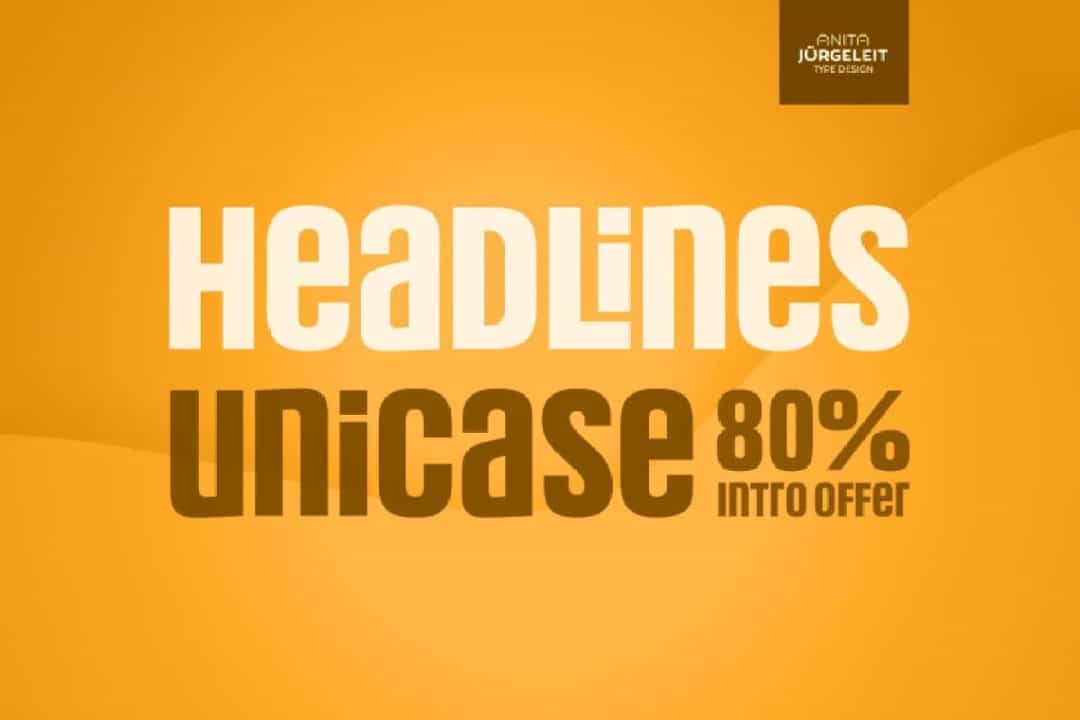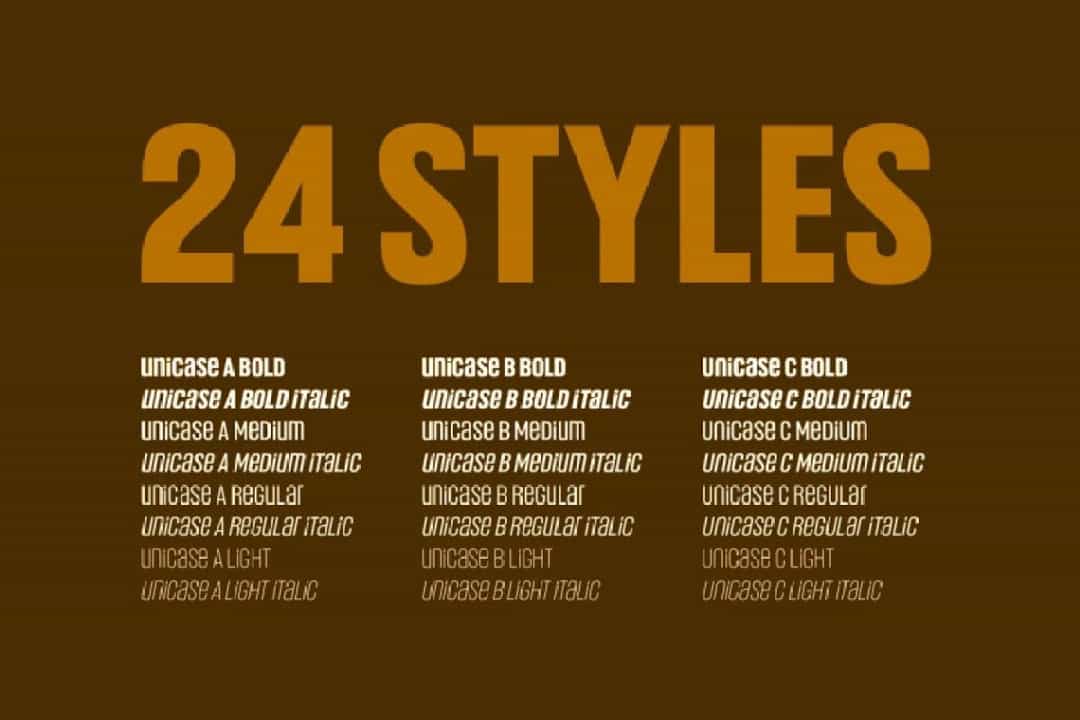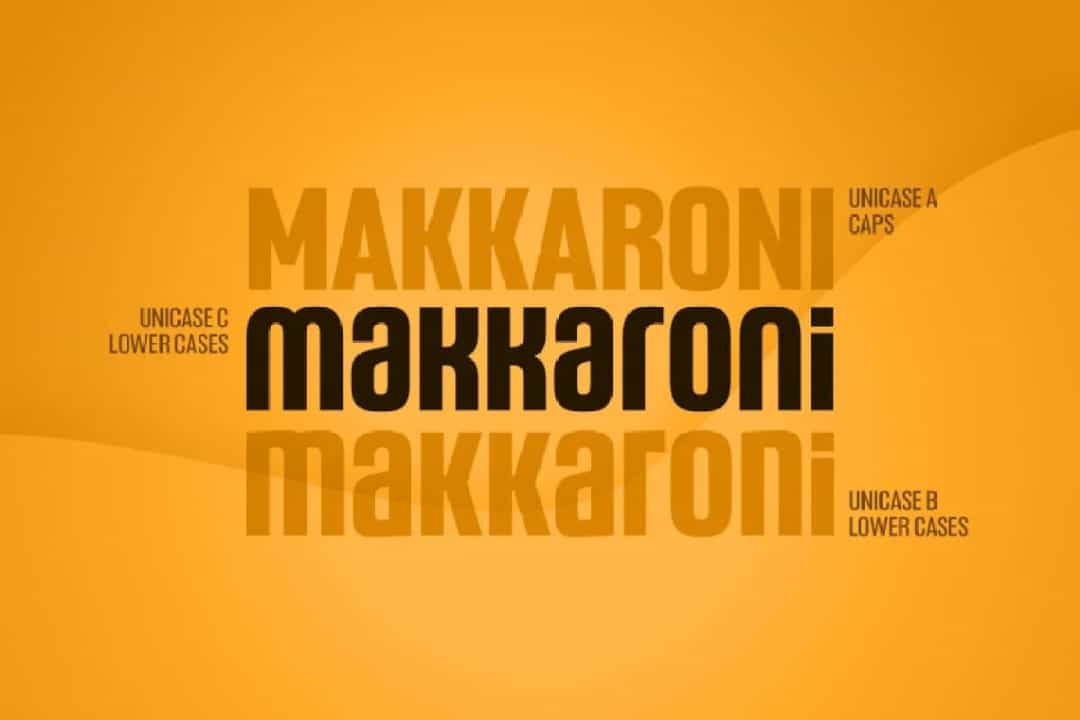
Discover Headlines Unicase Font, part of the Sans Serif collection—a versatile and unique font perfect for adding a personal touch to your projects. Download it for free and enjoy crafting designs with style, from invitations to social media posts. This font is available exclusively for personal use, giving you the freedom to create without limits. Unlock your creativity with Headlines Unicase Font today!
Headlines Unicase font family offers you one of the largest and most captivating headline font styles you’ve ever worked with, featuring characters that can be safely used without needing specific software or special font styles – it can even be found anywhere from Text Edit to Canva; even on mobile devices or ebook readers such as smartphones you have access to all these alternate characters if they select an appropriate style font!